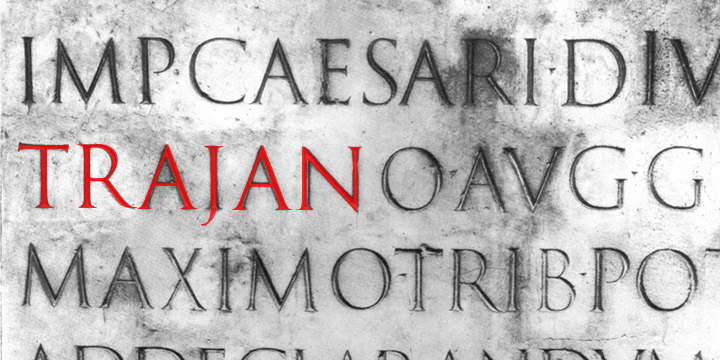
The Trajan Column
The so-called "Trajan Column" was erected in Rome in A.D. 113 to commemorate the victories of the Emperor Trajan. The letters 'TRAJAN' using Goudy Trajan Regular are superimposed in red to show how well it captures the essence of the original lettering. These "monumental capital" letterforms are considered the most elegant example of Roman capitals and serve as the standard and inspiration for all classic Roman capital letterforms, including drawings by the great American type designer Frederic W. Goudy, which in turn are the basis for the Goudy Trajan typefaces by CastleType. [Return to previous page.]